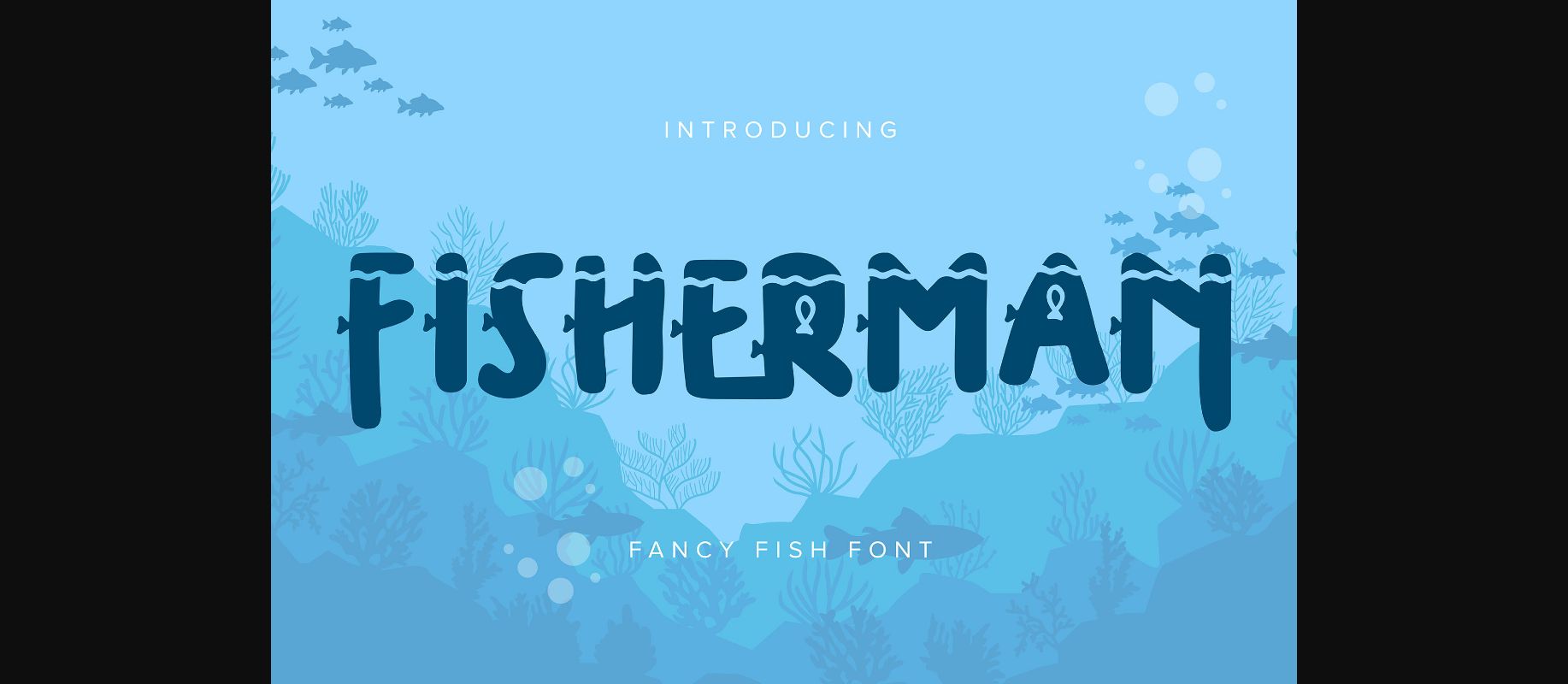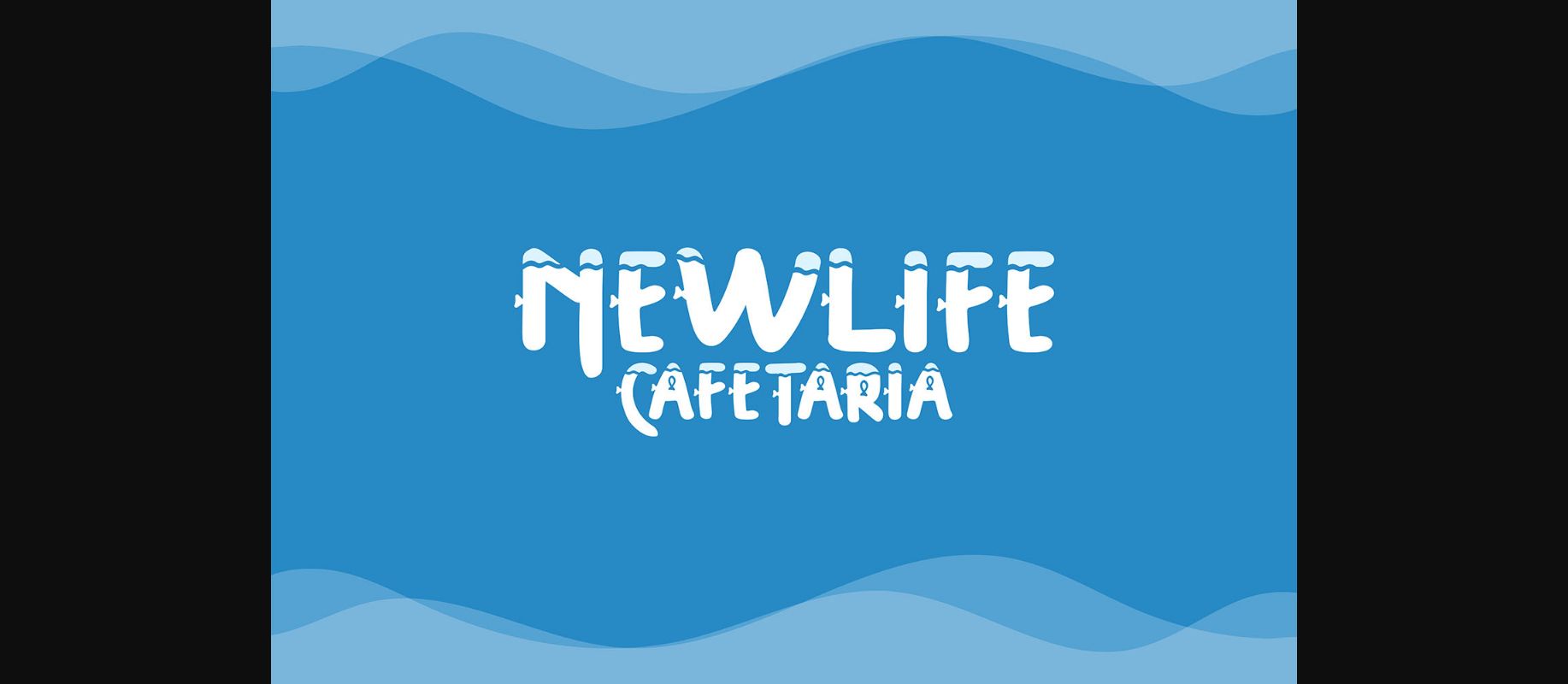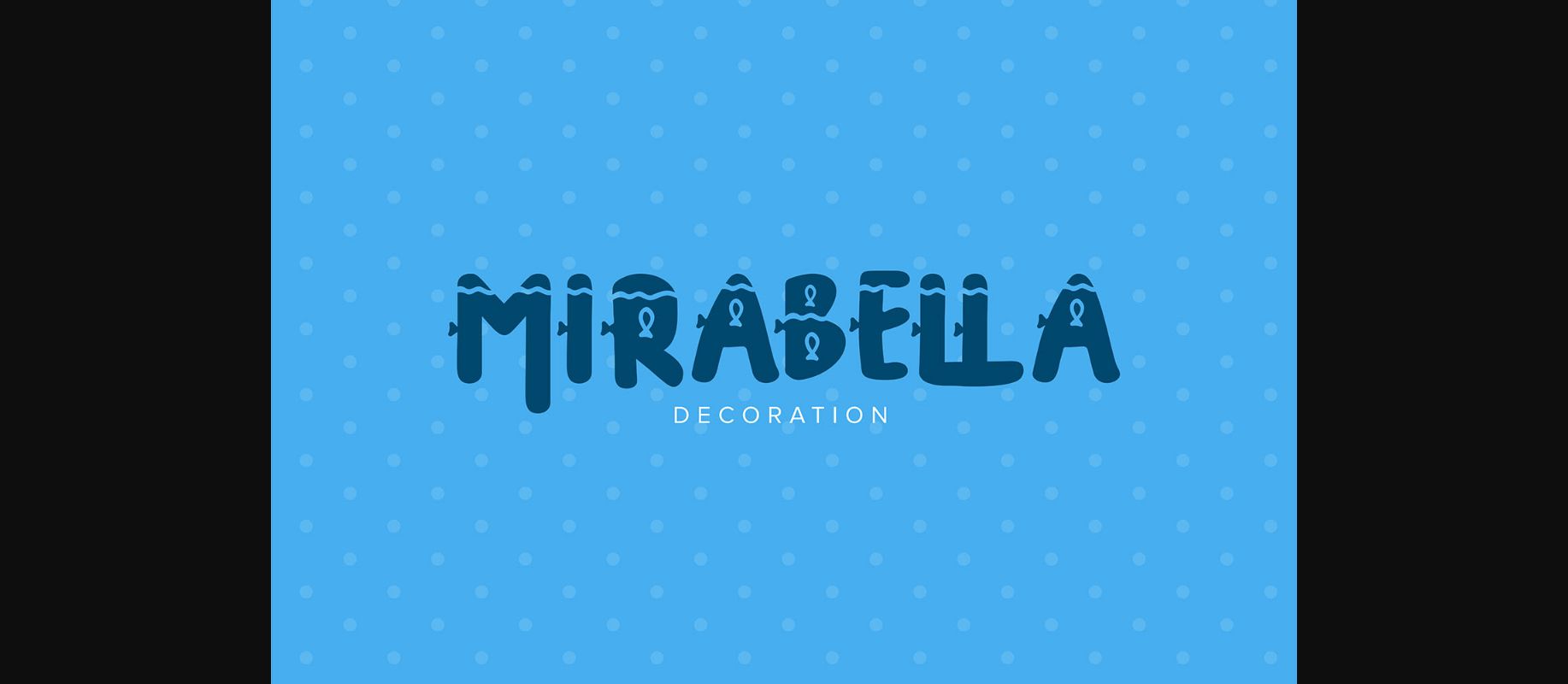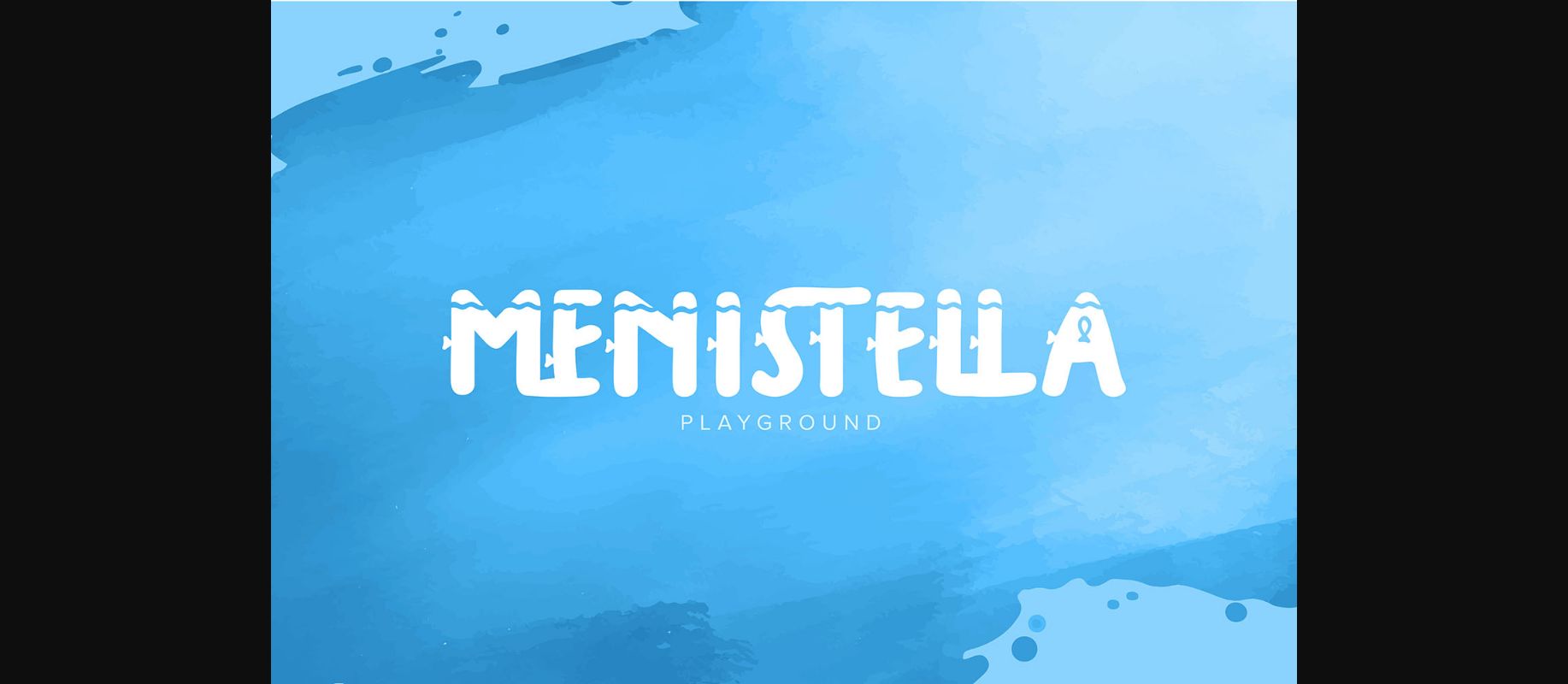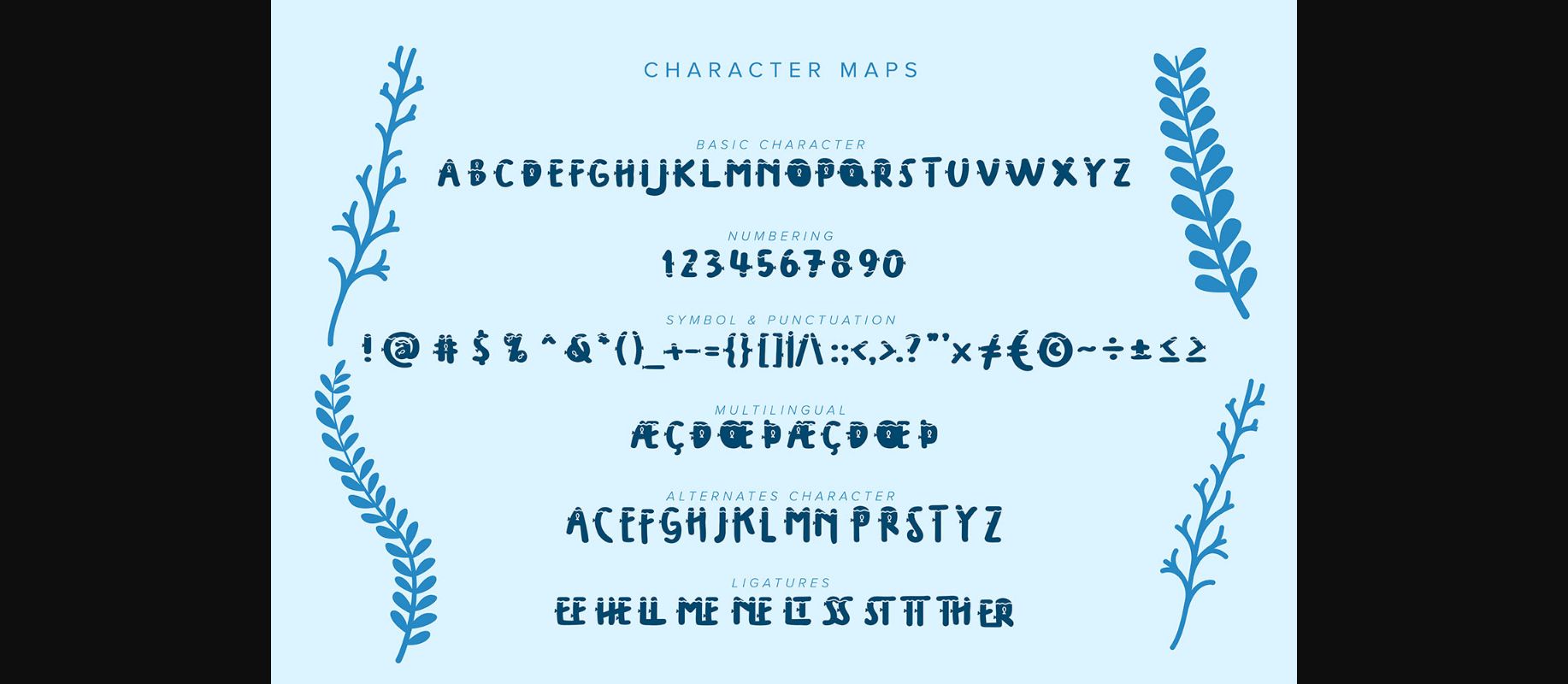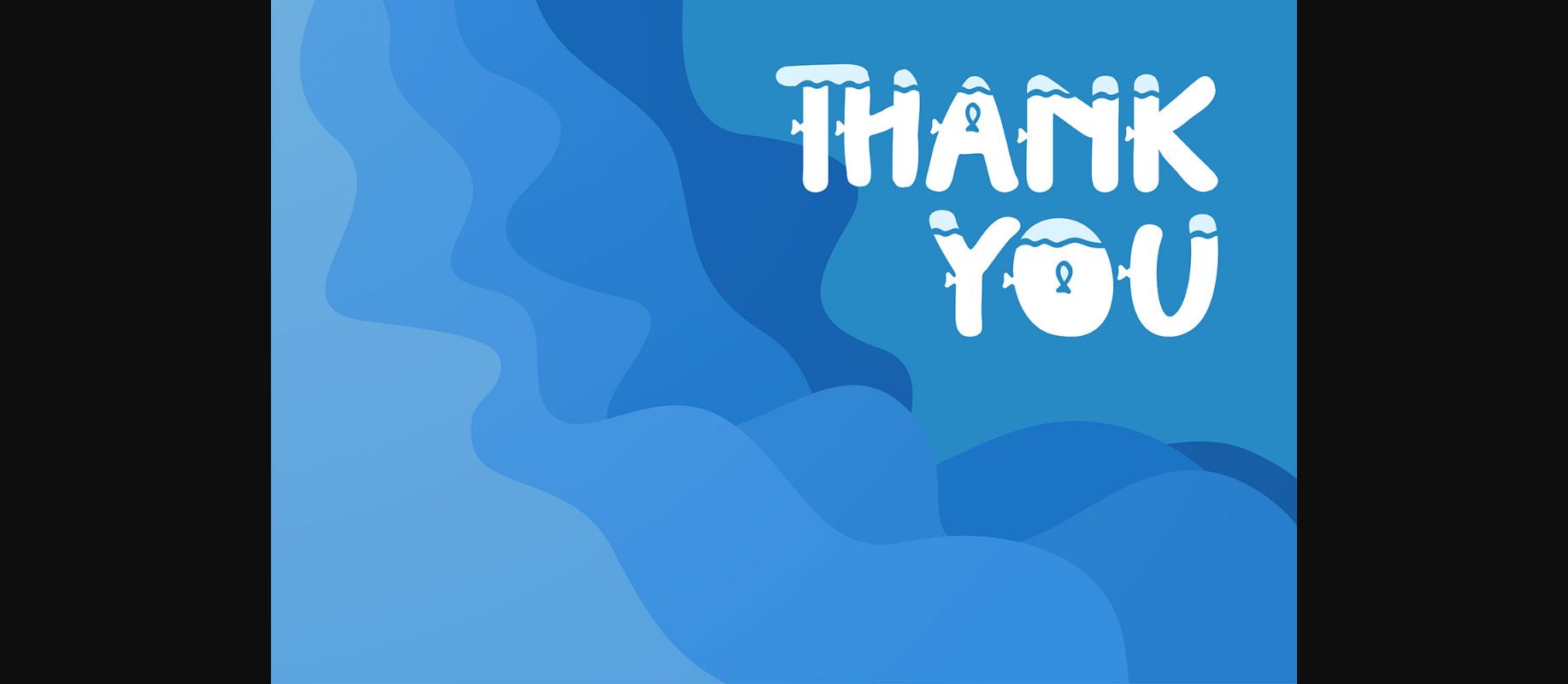
Fisherman Font
About Fisherman Font
Fisherman is an incredibly unique and interesting decorative font, featuring fish ornaments. Add this font to your favorite creative ideas and notice how it makes them come alive!